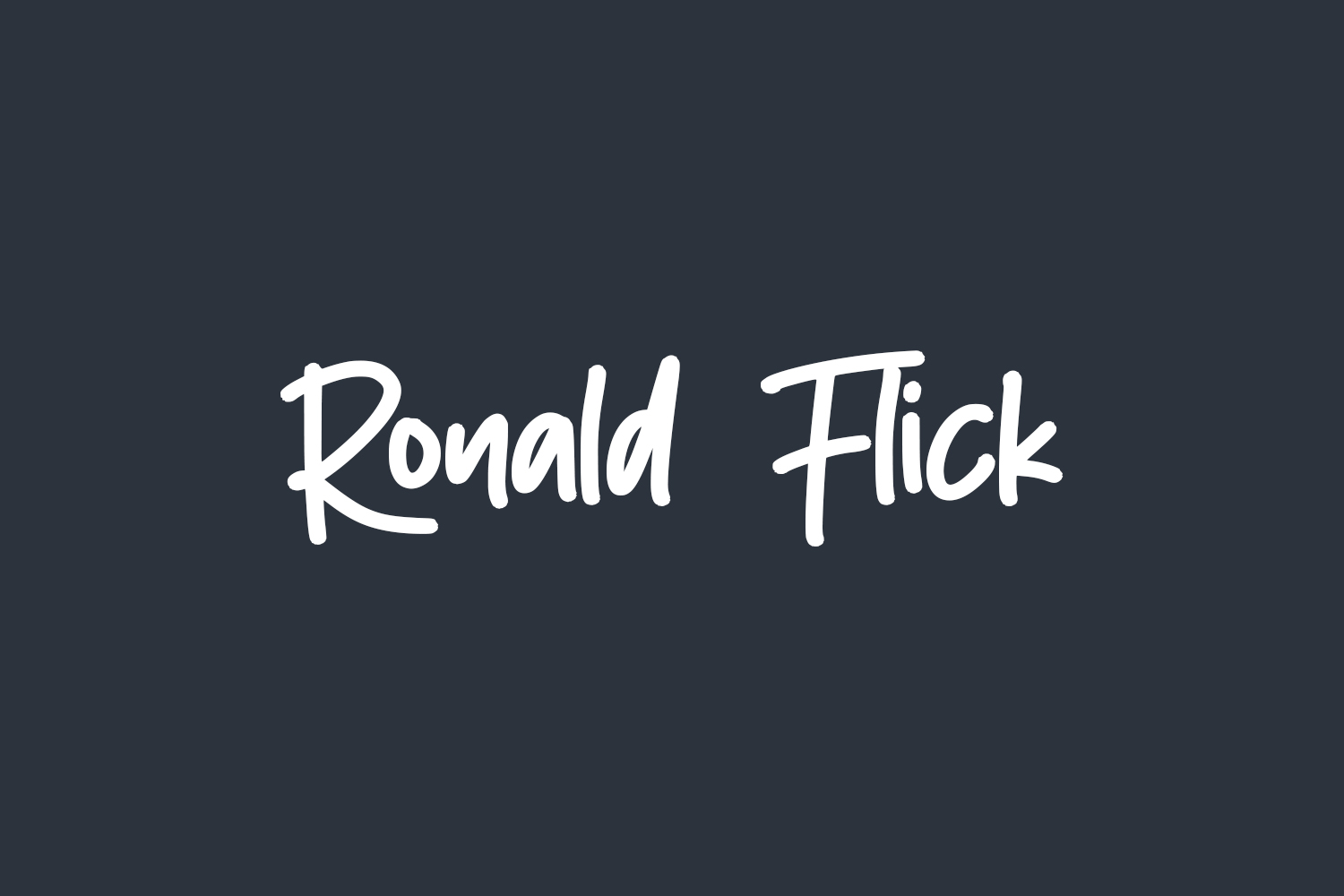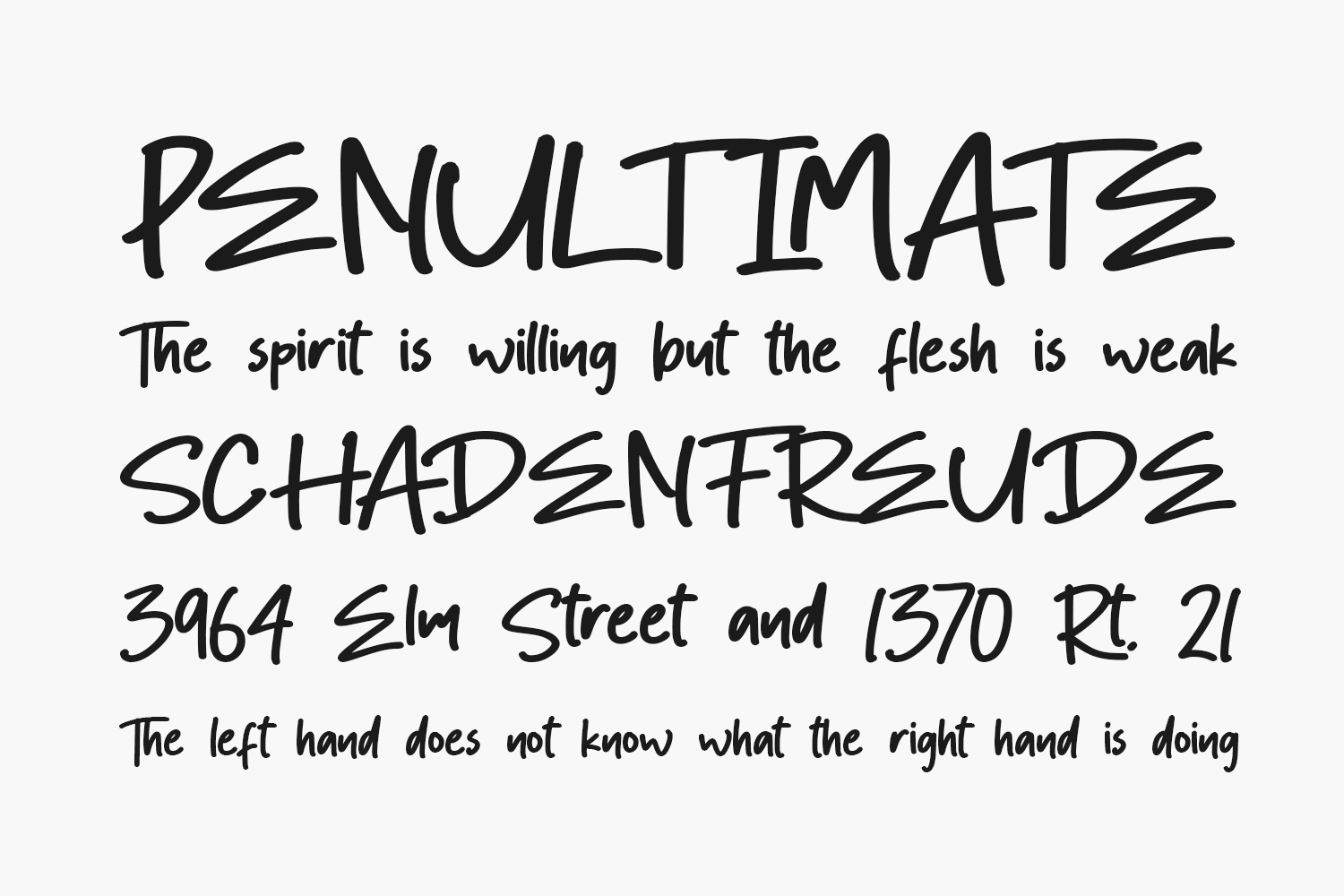
Ronald Flick Free Font boasts delicate and elegant strokes that flow effortlessly, giving it a distinctively handwritten feel. Its balanced and beautiful characters make it a versatile choice for a range of design projects. Incorporate this font into your most imaginative ideas and watch as they come to life with their captivating touch.
Designed by StringLabs